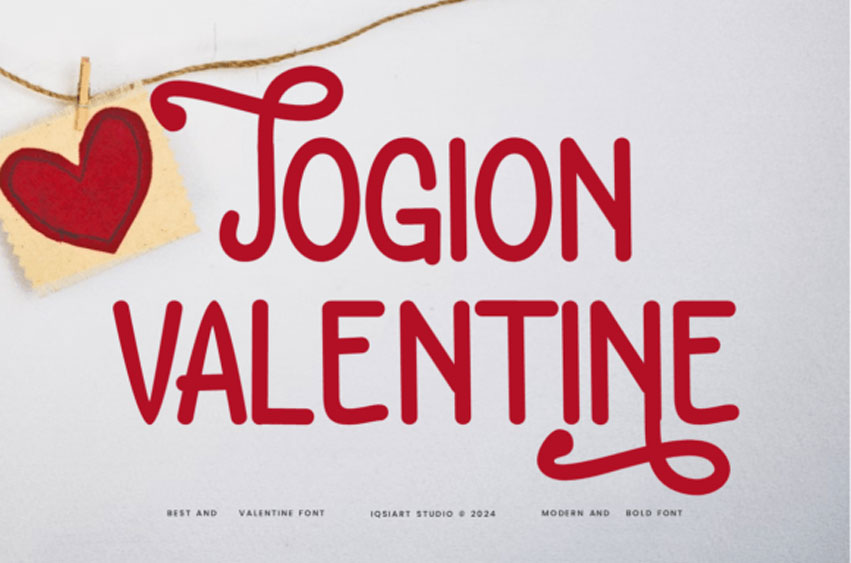
Jogion Valentine Font
Jogion Valentine Font is a cheerful and romantic display font, featuring playful strokes and charming swashes that bring a sense of love and joy to your designs.
Perfect for Valentine’s Day projects, wedding invitations, greeting cards, branding, and romantic quotes, this font adds warmth and a touch of whimsy. Its bold yet friendly style ensures your designs stand out with heartfelt elegance.